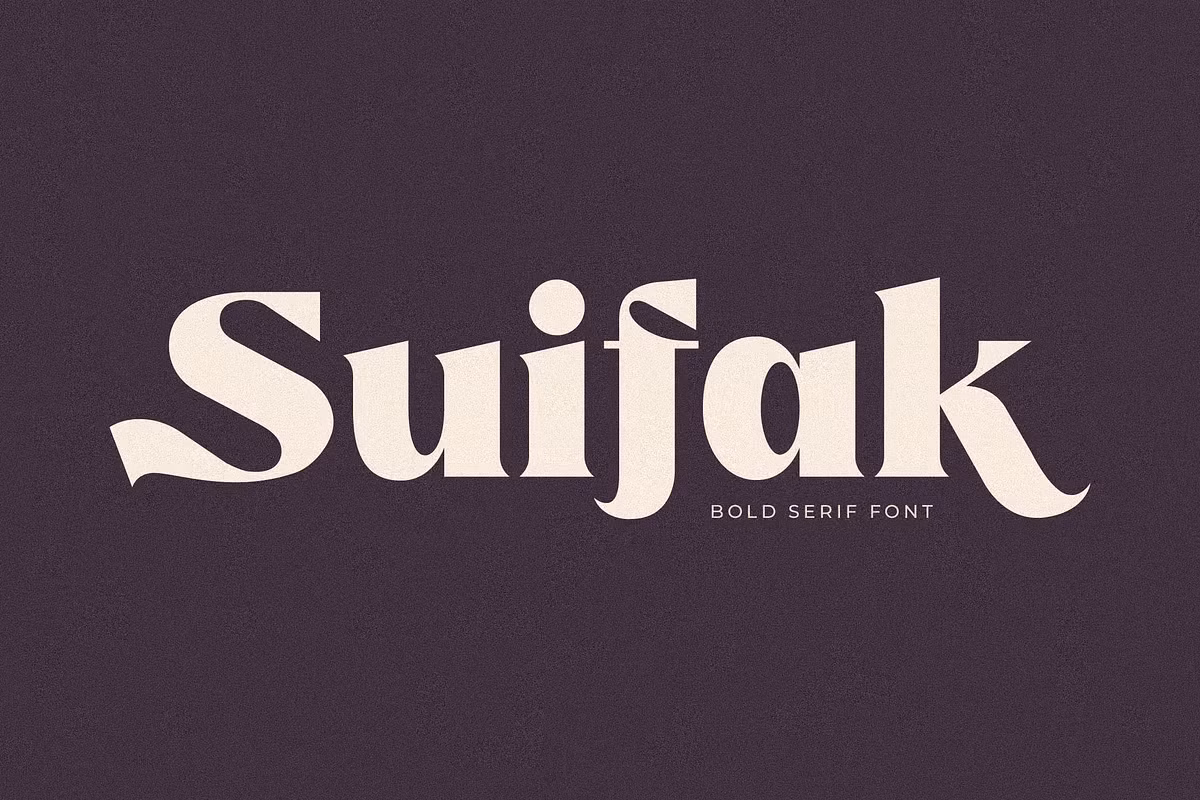
Suifak Bold Serif Font Free Download
Suifak Bold Serif Font Free Download is a striking serif typeface that commands attention with its bold presence and elegant details. Designed for strong headlines, impactful logos, editorial layouts, and branding, Suifak blends classic serif style with a contemporary twist—making it perfect for modern creatives.
With high contrast strokes and refined serifs, Suifak offers a powerful yet polished look across both print and digital platforms. It supports multiple languages and works seamlessly on Mac and Windows systems, making it a versatile addition to any designer’s toolkit.